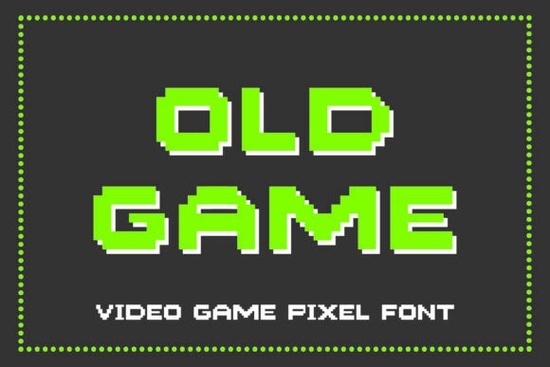
If you’ve ever wanted to add that authentic 8-bit arcade feel to your designs, the Old Game Font delivers exactly what retro enthusiasts are looking for. This pixel-perfect display font captures the blocky charm of classic video game consoles think early Nintendo, Sega, or even vintage computer terminals. Every character is built from crisp, square pixels with bold lines and clean geometry, making it instantly readable while oozing nostalgia.
Designed specifically for visual impact, Old Game includes uppercase letters, numbers, and basic punctuation all crafted to maintain that digitized, low-resolution aesthetic without sacrificing clarity. Whether you're designing a Twitch overlay, an e-sports team logo, retro merch, or even NFT art inspired by chiptune culture, this font brings the right amount of throwback energy without feeling gimmicky.
What makes Old Game stand out from other retro fonts?
Many “pixel” fonts online are either too soft, inconsistent in spacing, or missing key characters. Old Game avoids those pitfalls by sticking to a strict grid-based structure where every glyph aligns perfectly. The result? A cohesive look that scales well and holds up even in small sizes ideal for UI mockups, packaging labels, or social media banners.
Unlike more decorative options like the playful Slime Drip Font or the dreamy Sugar Cloud Font, Old Game stays true to its utilitarian roots. It’s not trying to be cute or grungy it’s purely functional, just like the original game interfaces it mimics.
Who should use this font?
This font works best for creators who need a no-nonsense, high-contrast typeface with instant retro recognition:
- Print-on-demand sellers creating t-shirts, mugs, or posters with gaming themes
- Indie game developers building title screens or HUD elements
- Streamers and content creators designing overlays or thumbnails with an 80s/90s vibe
- Graphic designers working on branding for arcades, retro cafes, or tech events
- Crafters making stickers, enamel pins, or laser-cut signs with pixel art flair
It pairs especially well with minimalist layouts or vibrant color palettes reminiscent of CRT monitors. And because it’s all caps and monospaced, it integrates smoothly into grid-based compositions.
How does it compare to similar Creative Fabrica fonts?
If you enjoy the bold simplicity of Old Game but want alternatives for different moods, Creative Fabrica offers several complementary display fonts. For example, the College Jersey Black Grunge Font gives off a sporty, worn-in feel great for streetwear but lacks the digital precision of Old Game. Meanwhile, the Classic Varsity Font leans into American athletic nostalgia rather than tech history.
For something more adventurous, the Seafaring Scarring Trio Font mixes rugged textures with nautical themes, which is fun but far less versatile for screen-based projects. In contrast, Old Game’s clean pixel structure ensures it remains legible and effective across both digital and print applications.
Tips for using Old Game effectively
Because it’s a display font with strong visual weight, avoid using it for long paragraphs. Stick to headlines, logos, buttons, or short phrases. Here’s how to get the most out of it:
- Use solid background colors especially black, dark blue, or deep purple to mimic old console screens.
- Add subtle scanlines or glow effects in post-production to enhance the CRT monitor illusion.
- Pair it with simple sans-serif fonts (like Helvetica or Arial) for body text to maintain readability.
- Scale evenly never stretch or distort the font, as it breaks the pixel grid and ruins the effect.
Remember: authenticity matters. Don’t overcomplicate your design. Sometimes just white Old Game text on a black background says everything you need.
Before you download: Confirm your project needs a strictly uppercase, pixel-based font. If you require lowercase letters, multilingual support, or variable weights, this might not be the right fit but for pure retro gaming vibes, it’s hard to beat.